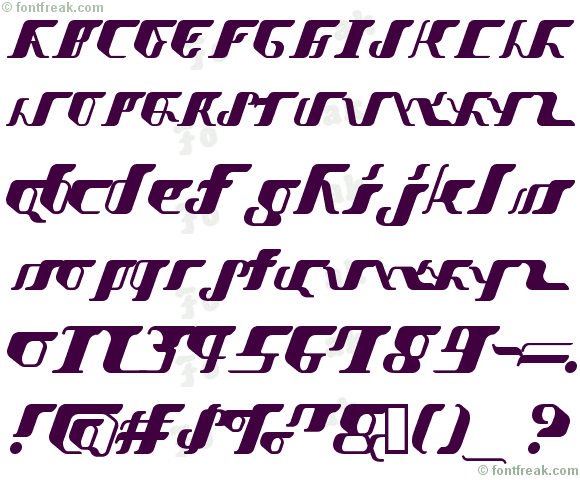
Vitesse SemiBold
Vitesse by Kivart is a distinctive display font that captures attention with its unique design. As a freeware typeface introduced in 1998, it stands out in the realm of graphic design. The font showcases a striking visual style characterized by its bold, semibold weight and sleek lines, making it an ideal choice for projects requiring a modern and dynamic aesthetic. The letterforms exhibit an intriguing blend of sharp angles and smooth curves, creating a sense of movement and energy that is both appealing and memorable.
Visually, Vitesse features moderate contrast in stroke weight, with thicker sections providing emphasis while maintaining readability. The spacing between the characters is carefully designed, allowing for clear legibility in various contexts. The decorative elements, such as the unique tail on the "V" and the stylized "s," add an artistic flair that enhances its overall appeal. These characteristics make Vitesse particularly suited for eye-catching applications.
This font excels in various use cases, including vibrant movie posters, trendy restaurant menus, engaging event flyers, and striking branding materials. Its bold personality can effectively convey a sense of excitement, making it a favorite among graphic designers and content creators looking to make a statement. Small business owners seeking to elevate their marketing collateral will also find Vitesse to be a valuable asset.
What truly sets the Vitesse font apart is its ability to blend creativity with functionality. Its unique style captures the essence of modern design while remaining highly versatile across different media. For those in search of a distinctive typeface that stands out, the Vitesse font free download offers an excellent opportunity to enhance any project with a touch of originality and flair.